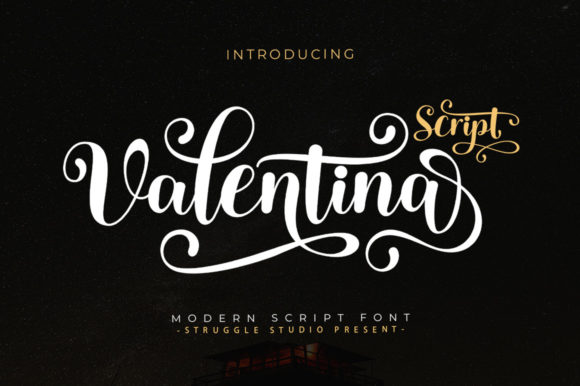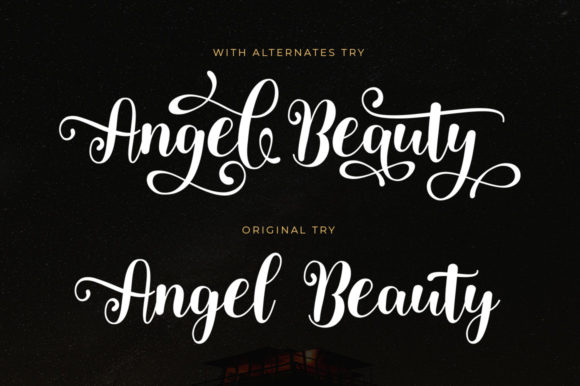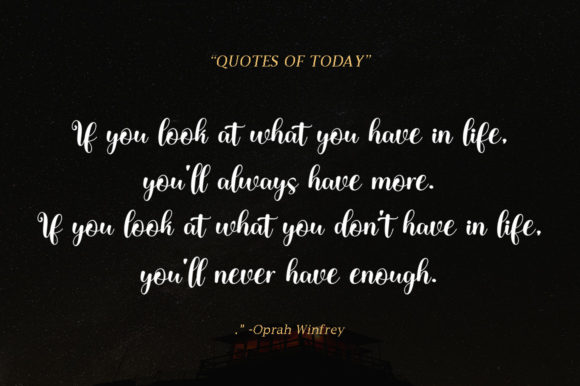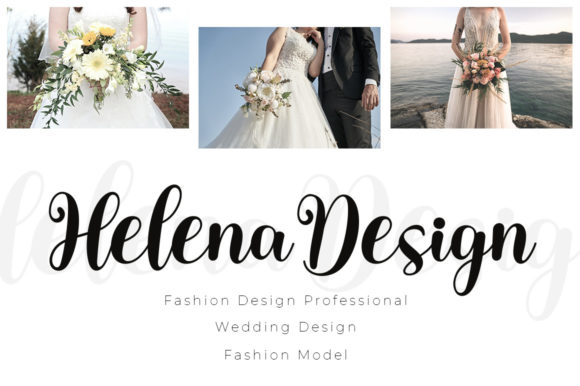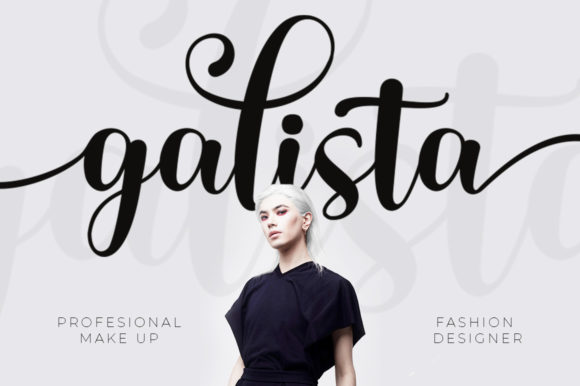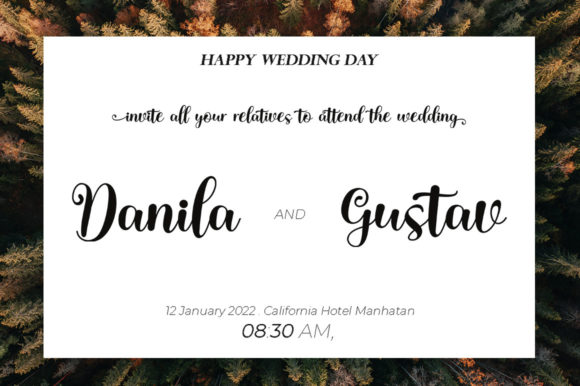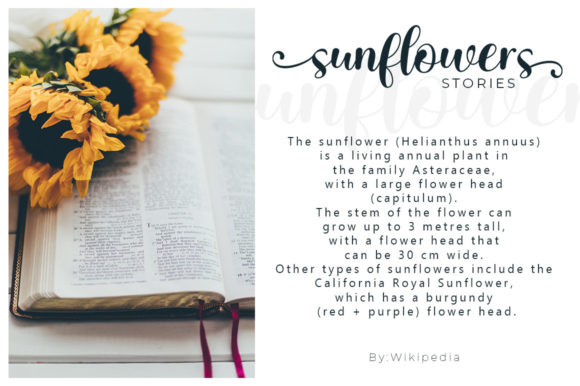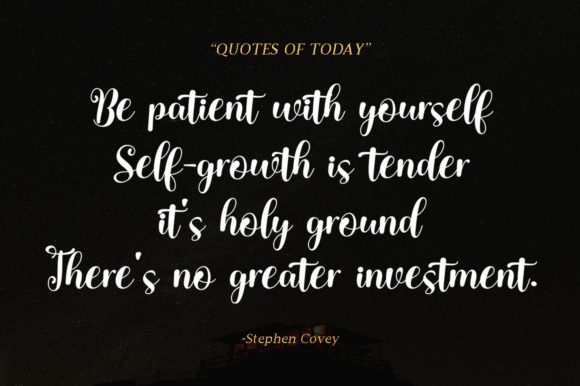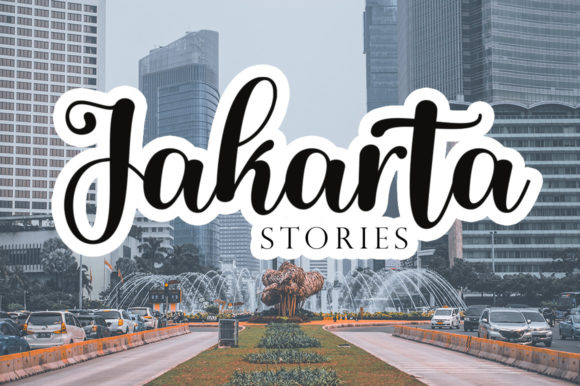
Valentina Script Font
Valentina Script is a sweet and delicate handwritten font. Dainty and joyful, this font will be ideal for writing wedding invitations, cards or any other design that may need a romantic, personalized touch!